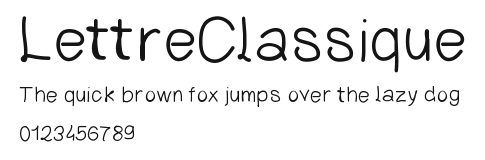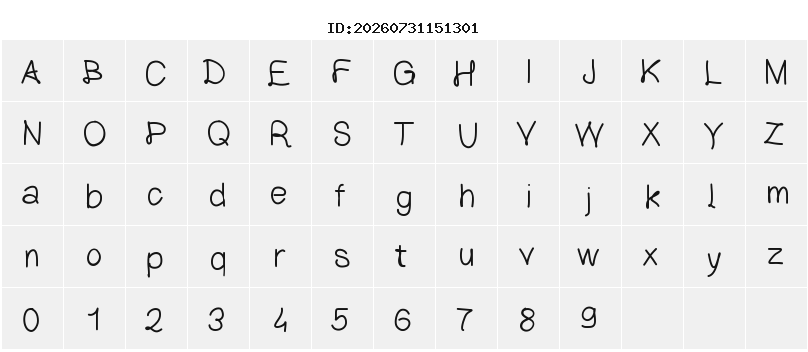
• Font Name: LettreClassique
• Full Font Name: LettreClassique
About LettreClassique.ttf
LettreClassique.ttf is a modern, elegant sans-serif font designed for ultimate readability and visual harmony. Perfect for branding, headlines, web design, and print materials.